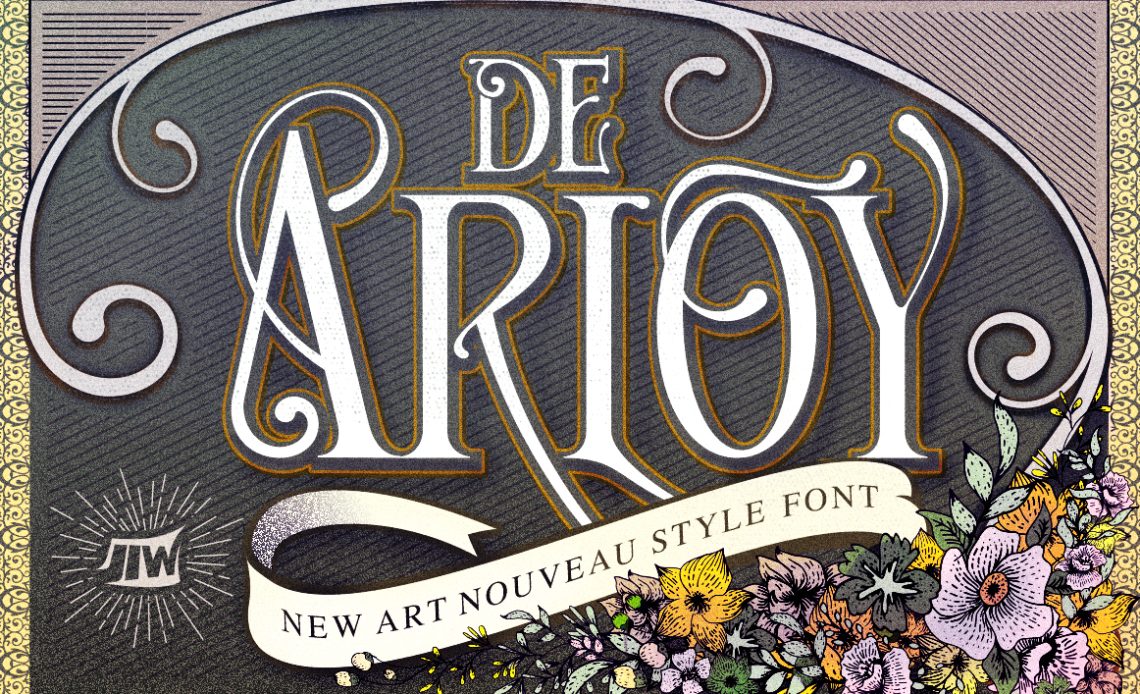
Introducing De Arloy, a captivating decorative font that will transport you to the enchanting era of art nouveau. Created by storictype, this gorgeous typeface embodies the intricate details and ornamental charm that defined the years from 1890 to 1910.
Immerse yourself in the nostalgic beauty of De Arloy as it captures the essence of a bygone era. With its meticulously crafted letterforms and delicate curves, this font brings to life the spirit of that wondrous time in the art world. Each character tells a story, evoking a sense of elegance and sophistication that will captivate any viewer.
Embrace the allure of art nouveau with De Arloy's exquisite design. Its flowing lines and intricate flourishes add a touch of enchantment to any project, making it perfect for invitations, greeting cards, posters, and more. Let your creativity soar as you infuse your designs with the romance and grace of this remarkable font.
Unlock your artistic potential with De Arloy's versatility. Whether you're designing a vintage-inspired logo, creating a stunning headline, or adding a touch of elegance to your website, this font will elevate your work to new heights. Its timeless appeal and unique aesthetic make it a must-have for both professional designers and enthusiasts alike.
Stand out from the crowd with De Arloy's emotional impact. Its captivating charm will instantly draw attention and leave a lasting impression on your audience. From branding projects to social media campaigns, this font has the power to make your message resonate deeply and evoke a sense of nostalgia and wonder.